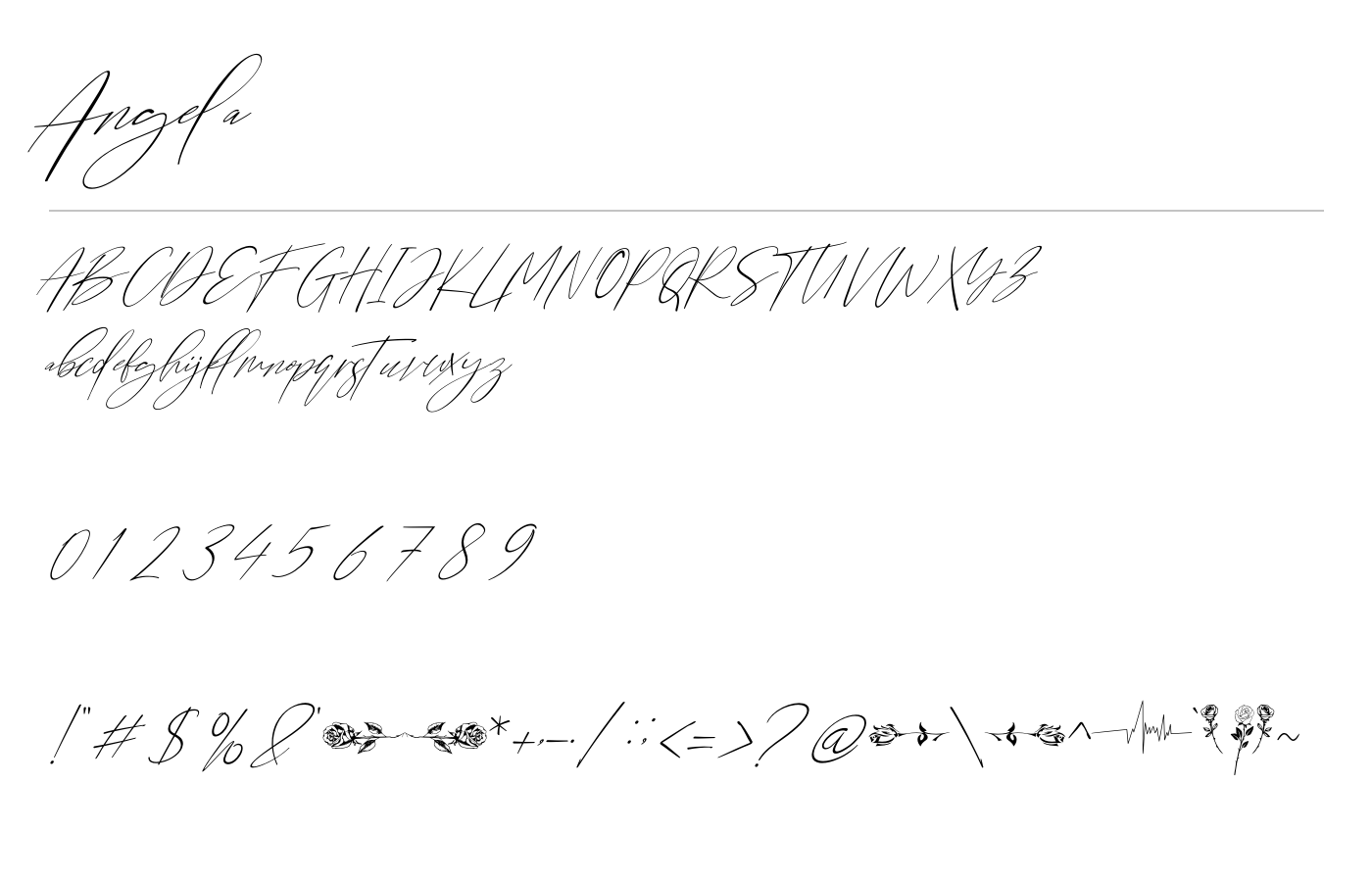
Angela Font is a delicate and elegant script typeface featuring slender, flowing strokes that mimic natural handwriting with a refined, airy feel. Its graceful letterforms and subtle decorative elements make it perfect for sophisticated branding, wedding invitations, and stylish editorial designs where a personal, feminine touch is desired. This font works beautifully in headlines or short texts where its artistic flair can truly stand out.
Angela Font
About Angela Font
| Font family | Angela Font |
| Designer | WinType / Winarko |